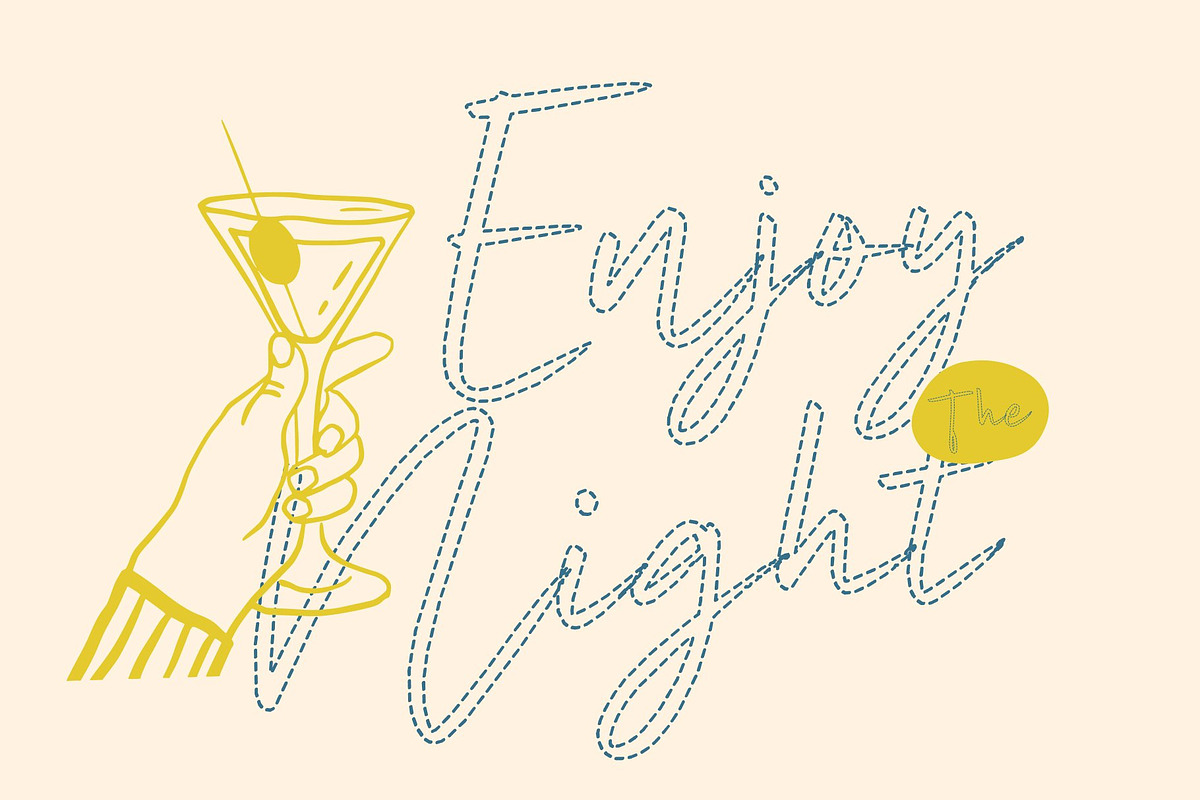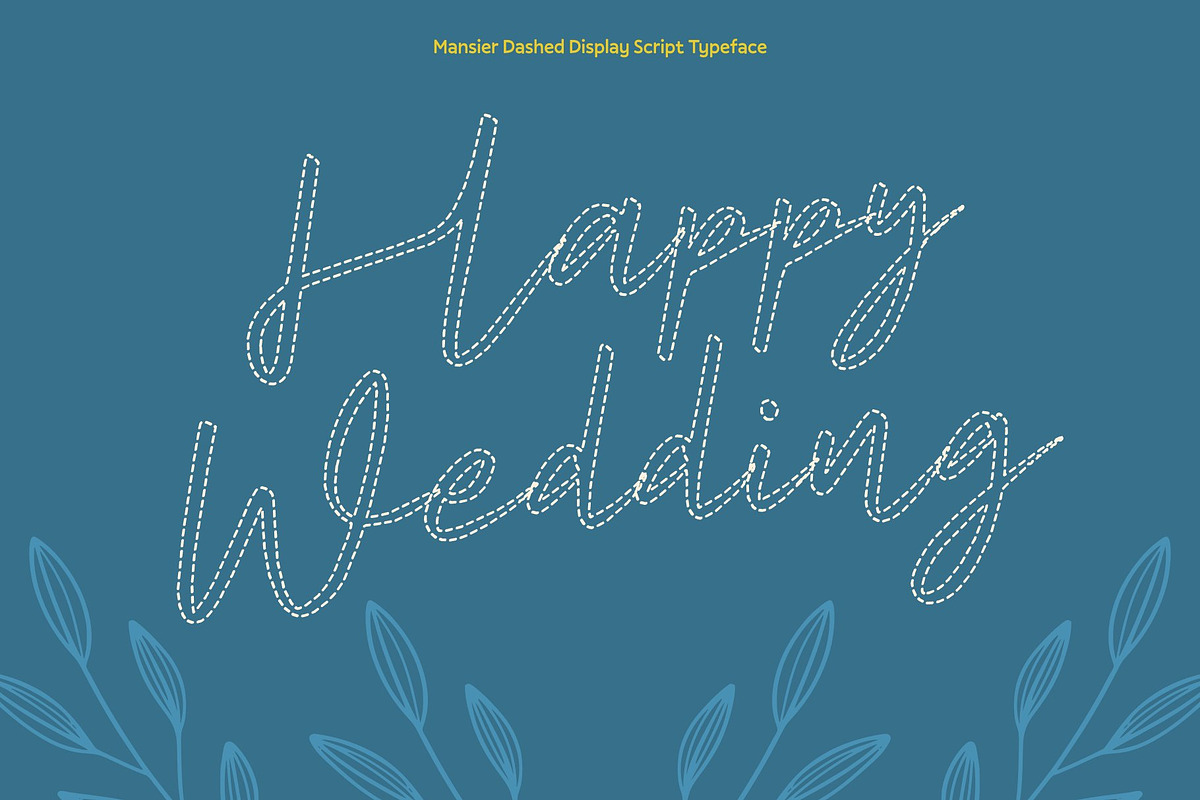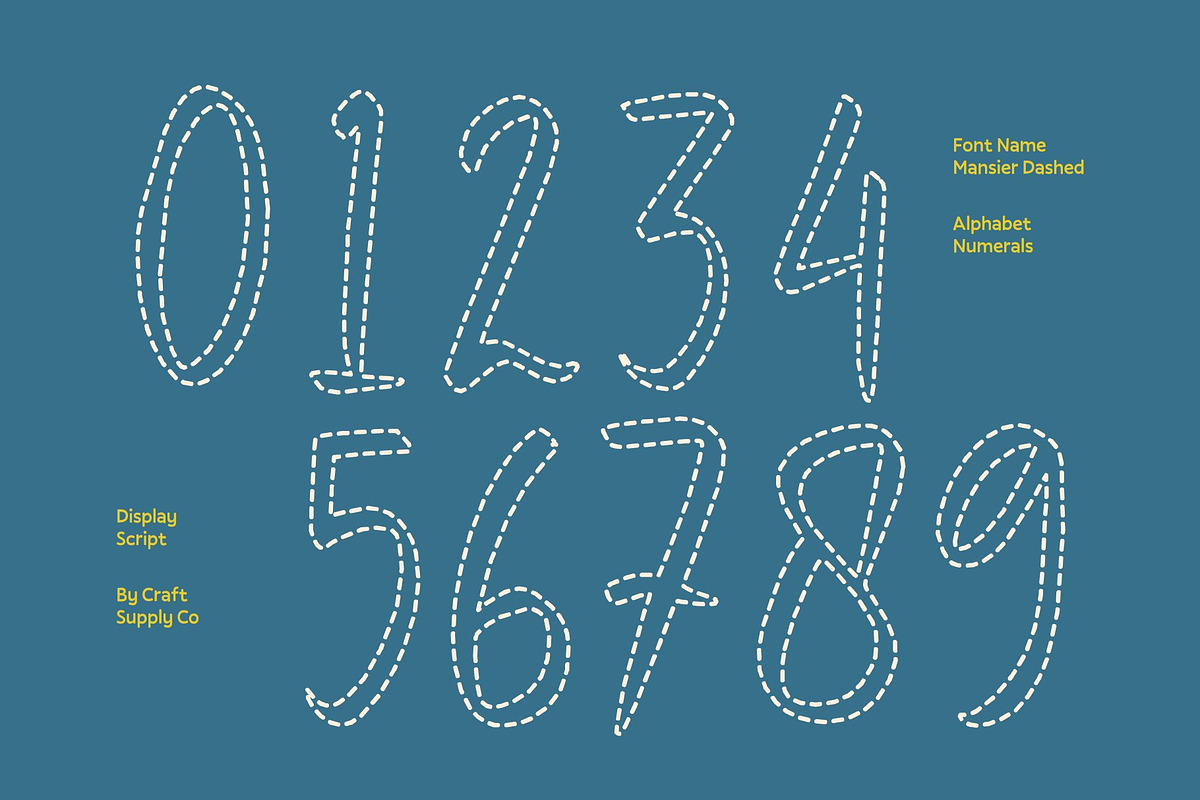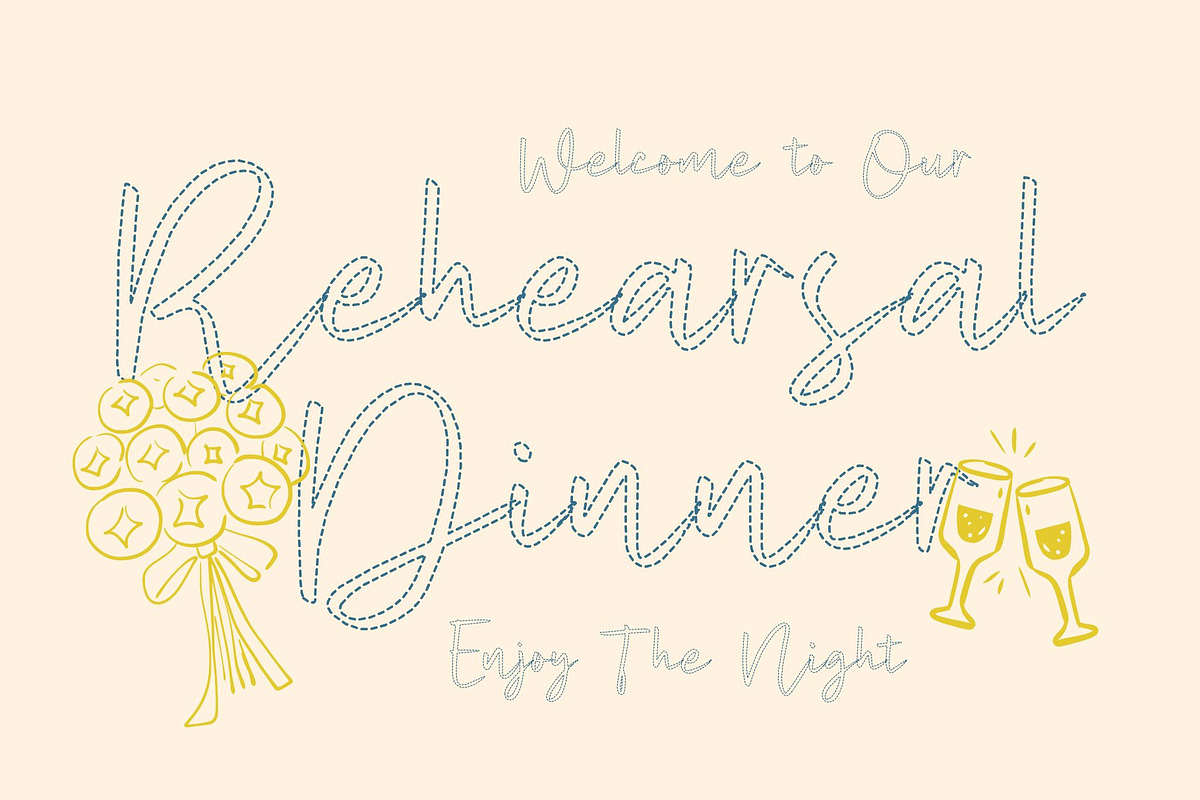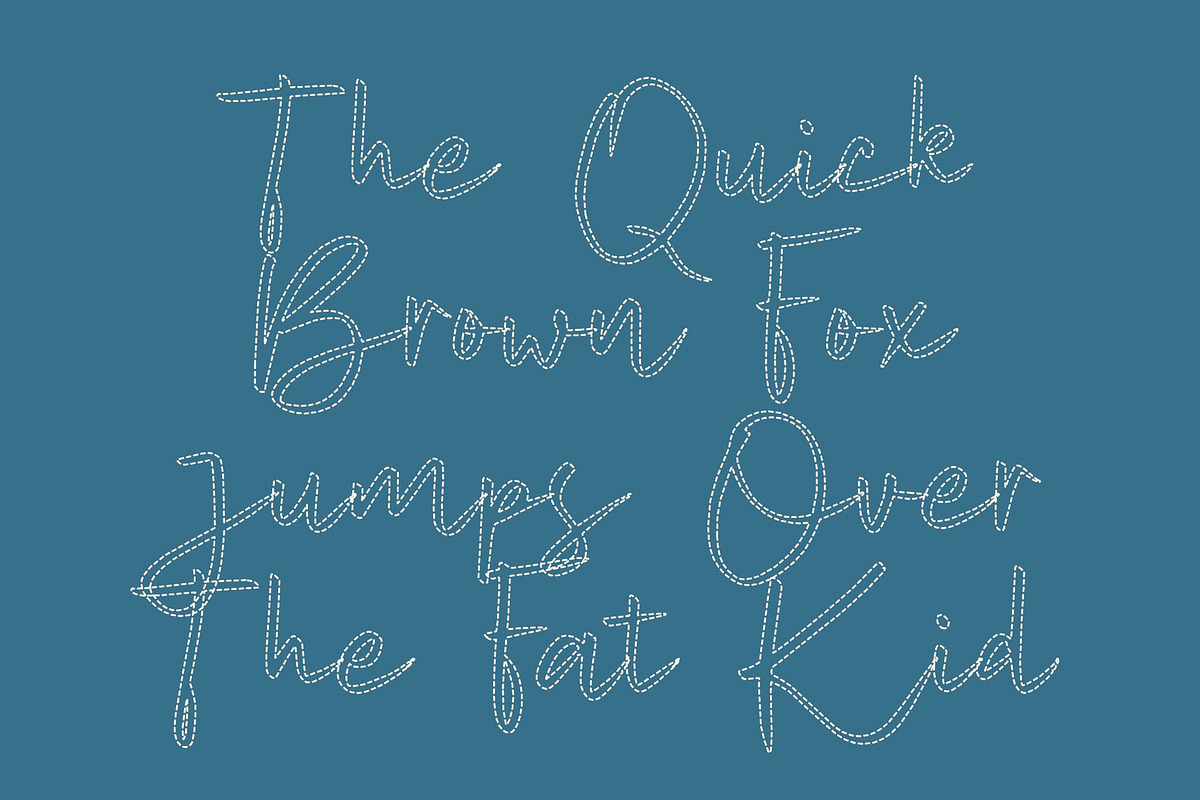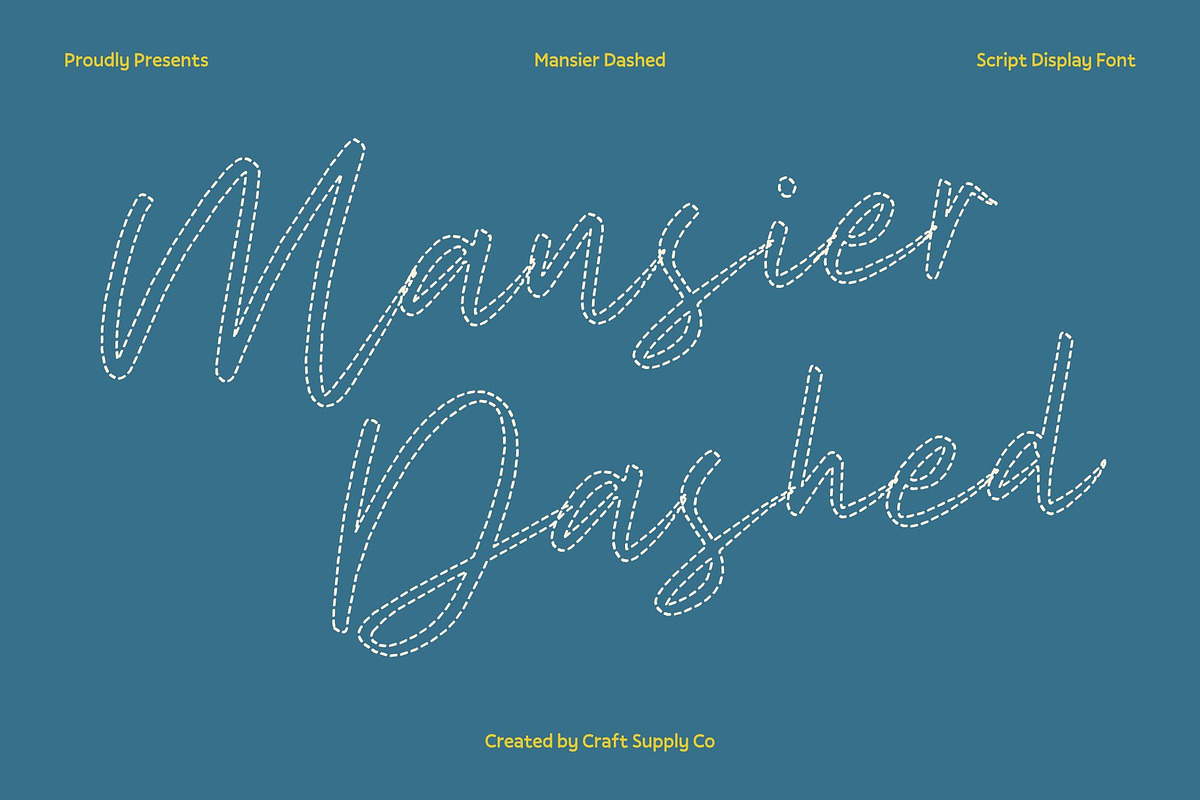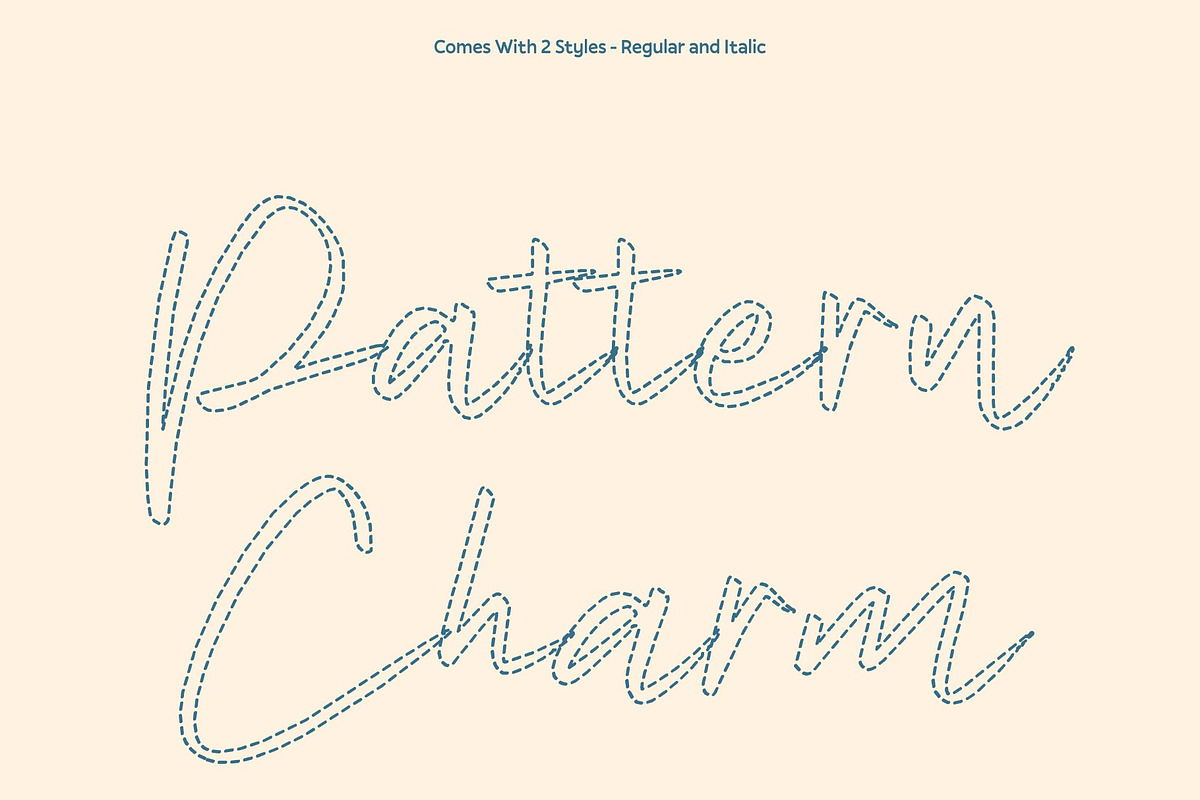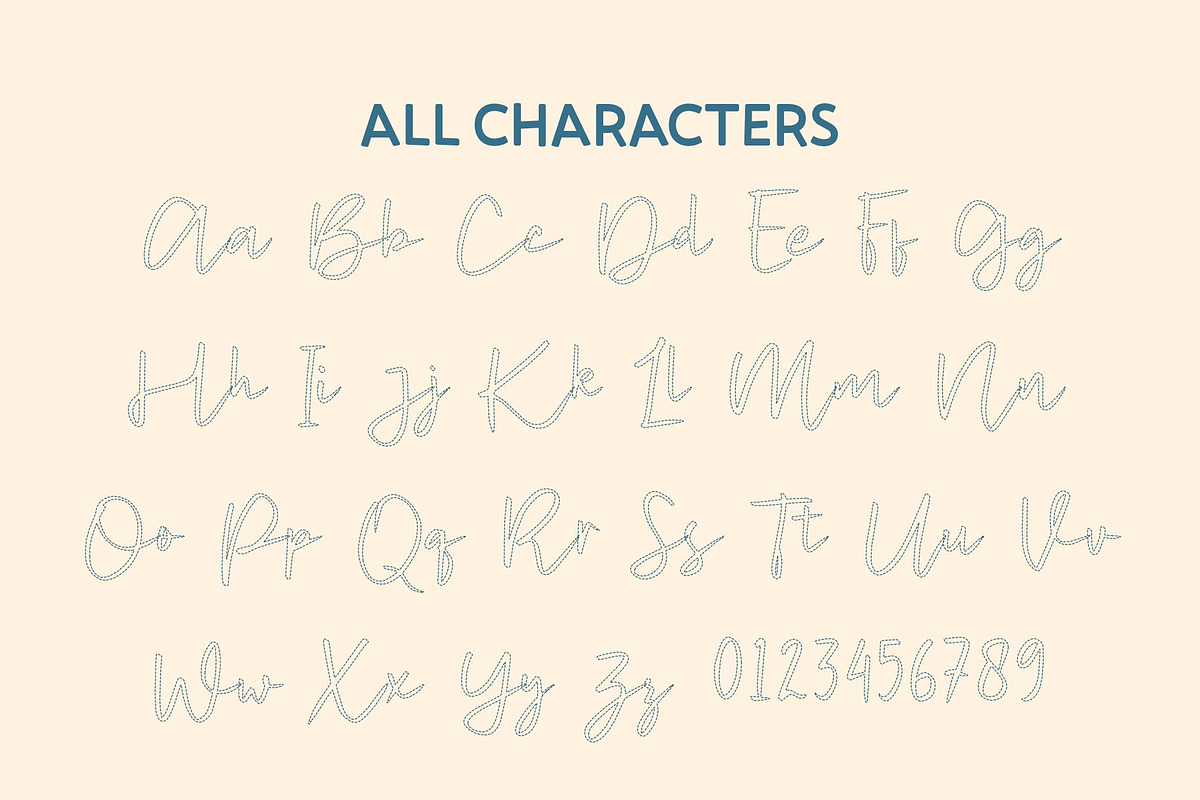
Mansier Dashed
Mansier Dashed – Casual Script Typeface
Modern Script with Feminine Elegance This is a modern script font designed with a soft feminine touch and a stylish handwritten flow. Its graceful curves and smooth rhythm create an elegant yet relaxed appearance, perfect for projects that aim to feel chic, friendly, and contemporary.
Perfect for Fashion and Lifestyle Branding This typeface works beautifully for fashion labels, e-commerce brands, trend blogs, wedding boutiques, and businesses that want to present an upscale and polished image. The delicate script style adds personality while maintaining a refined and professional look.
Versatile for Creative and Promotional Designs This font is ideal for logos, greeting cards, quotes, posters, branding materials, name cards, stationery, design titles, blog headers, and typography artwork. Its handwritten charm enhances both digital and print designs with warmth and sophistication.
Ideal for Hand-Drawn and DIY Inspired Projects Whether used for modern envelope lettering, watercolor themes, craft projects, book titles, or social media graphics, this font brings a trendy and stylish handwritten aesthetic that makes every design feel beautiful, personal, and memorable.